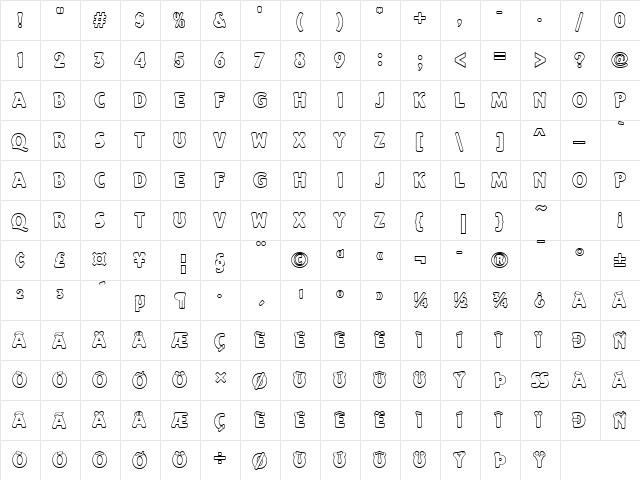
Elefont Outline Regular
Design Context for Elefont Outline Typeface
Elefont Outline is built around its visual character rather than neutral utility — its distinctive forms are designed to make an impression at display sizes.
Font Pairing: Pair with a clean neutral sans-serif for body copy to let Elefont Outline's character lead without overwhelming the composition.
Pro Tip: Treat Elefont Outline as the centrepiece of your typographic hierarchy. One strong heading set in a decorative face can carry an entire layout.